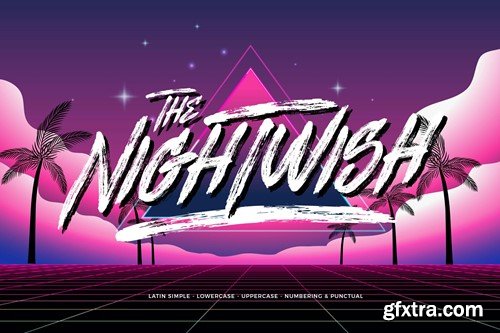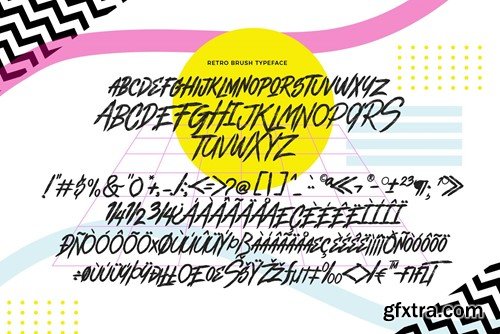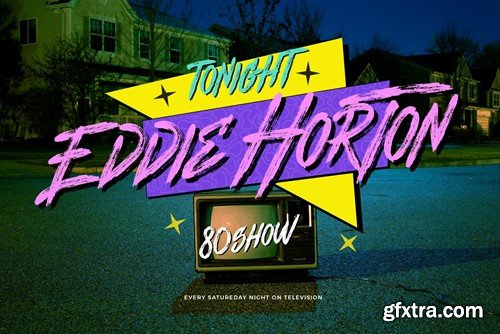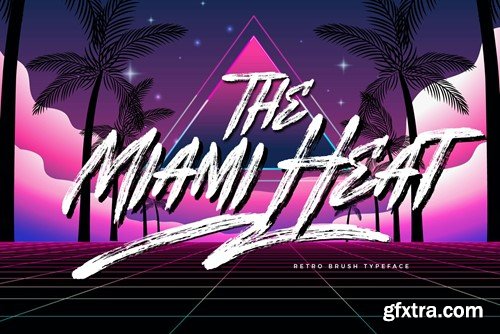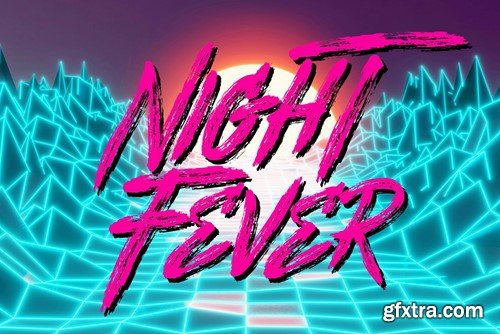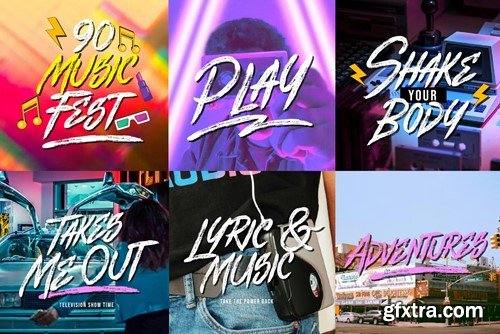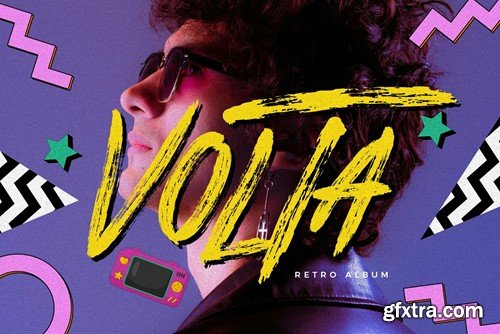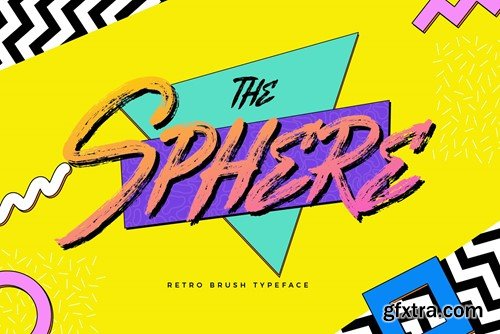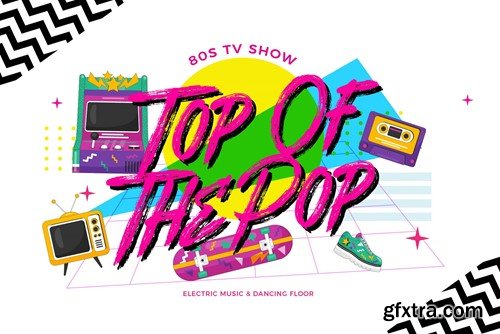
Nightwish - Disco Script Retro Font WYD5LQX
Nightwish Retro is retro script disco font pulsates with the vibrant energy of a bygone era, capturing the essence of the discotheque scene from the 1970s. Its bold, exaggerated strokes and flamboyant embellishments mirror the flamboyance and glamour of the disco era, reminiscent of neon lights illuminating a bustling dance floor. Each letter exudes a sense of rhythm and movement, as if grooving to the beat of a funky bassline. The font's flashy aesthetics and shimmering accents evoke nostalgia for a time of disco balls, platform shoes, and glittering outfits, making it an ideal choice for party invitations, retro-themed designs, or anything seeking a touch of disco fever. Thanks